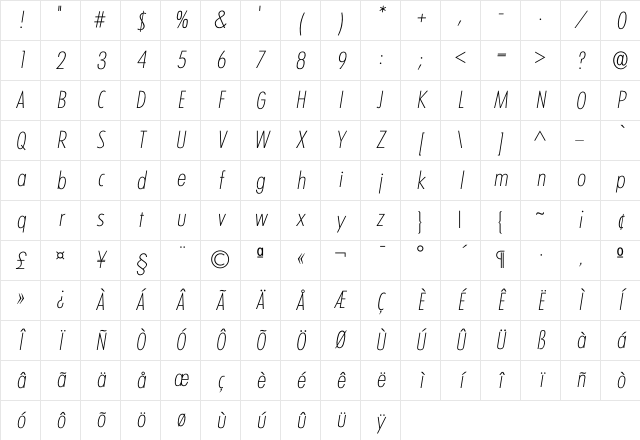
Iclimerick Xlight Free Font
Iclimerick Xlight
Style: Xlight
Iclimerick Family
Iclimerick Xlight
Design Context for Iclimerick
Iclimerick is a composed and adaptable typeface that performs quietly and consistently across a wide range of design contexts. Its slender proportions lend an understated elegance to any composition.